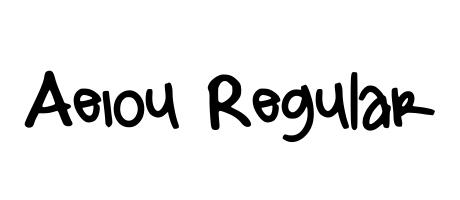
Aeiou
By Caer Dan
Aeiou Regular is a handwritten-style font, casual and friendly. Its letters are slightly uneven, giving it a playful, almost childlike charm. The strokes are relatively thick and consistent, lending a sense of boldness despite the informal appearance. It's versatile, suitable for titles, logos, or where a relaxed, approachable feel is desired.